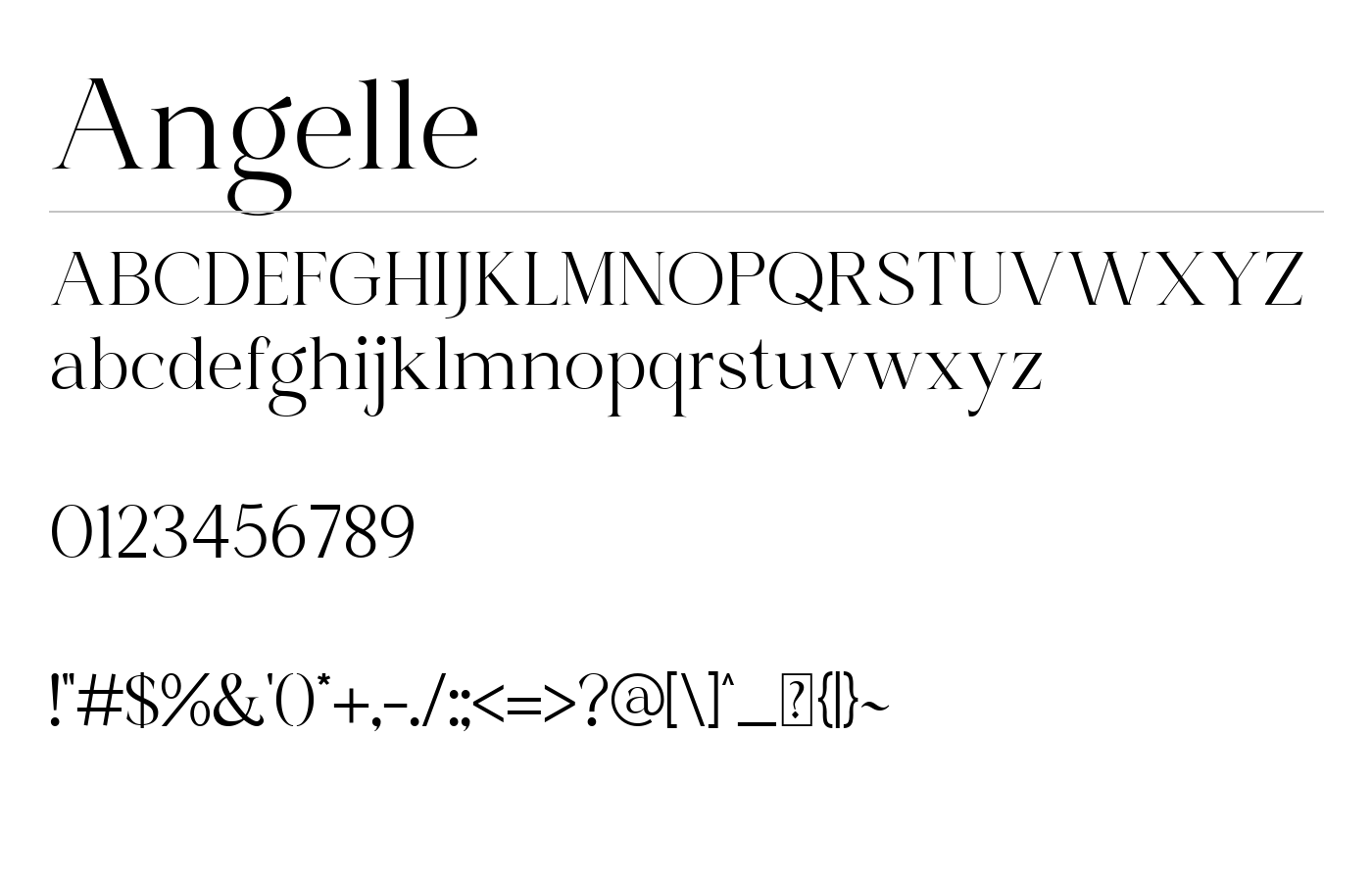
Angelle is a refined serif font characterized by its elegant thin strokes and high contrast between thick and thin lines, giving it a sophisticated, classic appeal. Its slender, slightly condensed letterforms and delicate serifs make it ideal for luxury branding, editorial design, and high-end packaging where a timeless and graceful look is desired. This font works beautifully in headlines and logos that aim to convey elegance and exclusivity.
Angelle Font
About Angelle Font